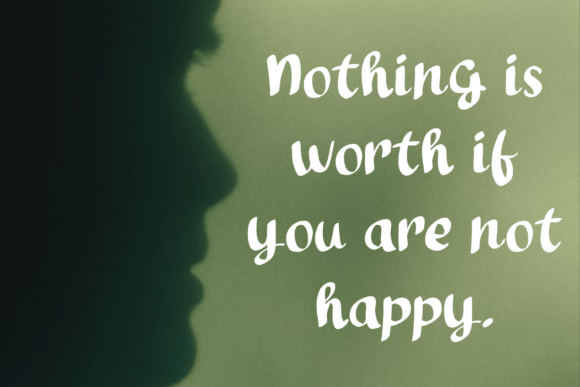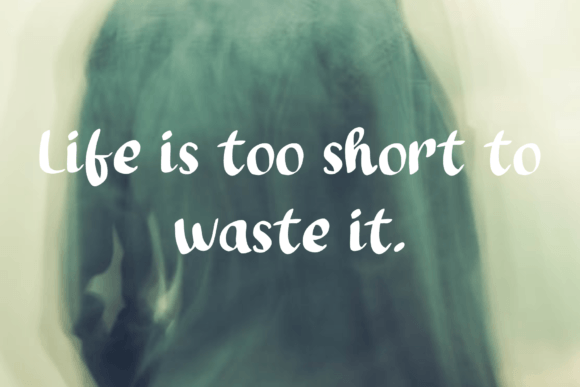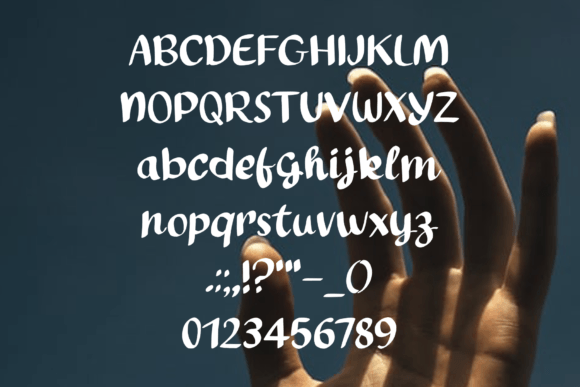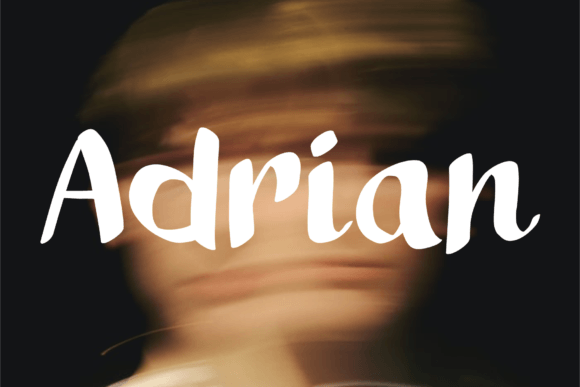
The Adrian Font: A Designer’s New Best Friend
I’ll never forget the time I was working on a project for a client who needed a custom logo. I had spent hours brainstorming ideas, but nothing seemed quite right. And then, I realized the problem wasn’t the design itself, but the font I was using. It was bland, boring, and completely unremarkable. I knew I needed something more, something that would make the logo pop. That’s when I discovered the Adrian font.
- 📚 Extensive character set: Adrian includes a wide range of characters, glyphs, and stylistic alternates.
While Adrian is an excellent font, it’s not perfect. Here are a few things to keep in mind:
- 🤔 Limited language support: Adrian might not support every language or script.
- ⚠️ Occasional kerning issues: You might need to adjust the kerning manually for optimal results.
Adrian was designed with inspiration from classic typography and modern digital design. The font’s creator aimed to craft a versatile, highly legible font that would work well in various contexts, from digital screens to print materials.
Q: Is Adrian suitable for body text?
Yes, Adrian is highly legible and suitable for body text. However, you may want to consider adjusting the font size and line height for optimal readability.